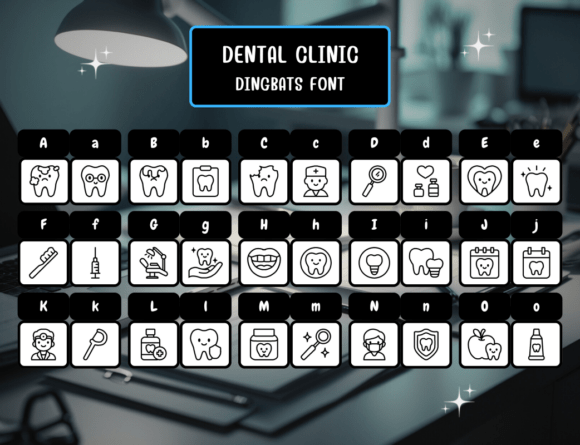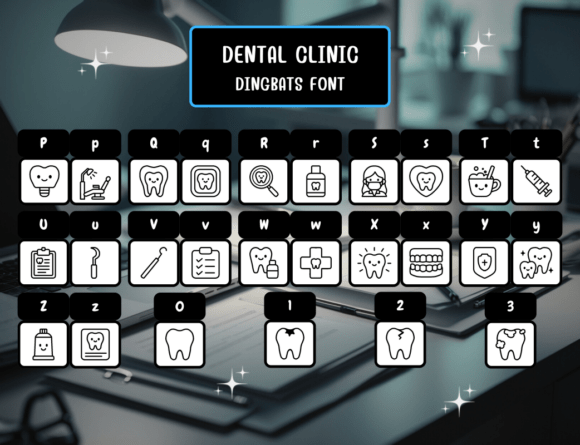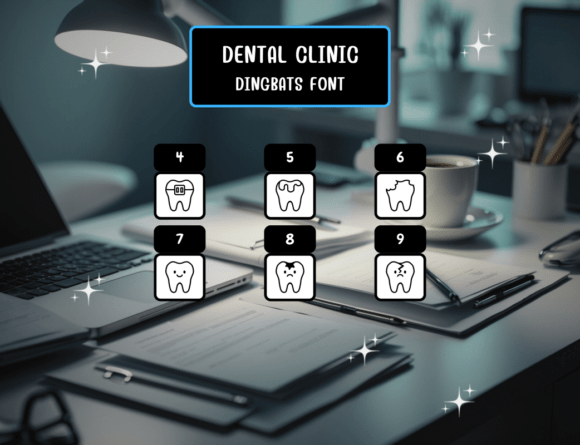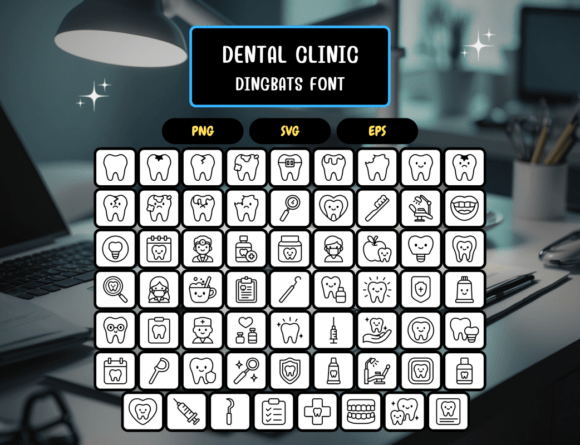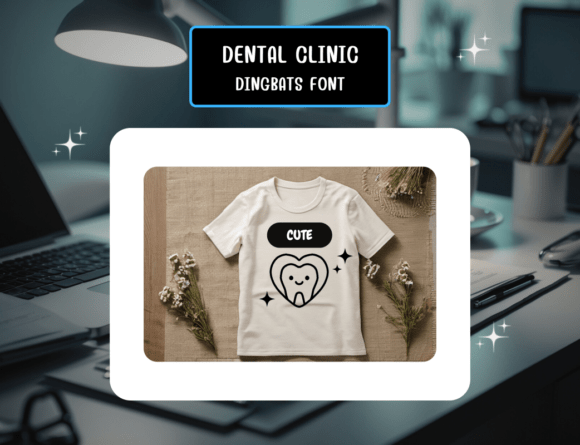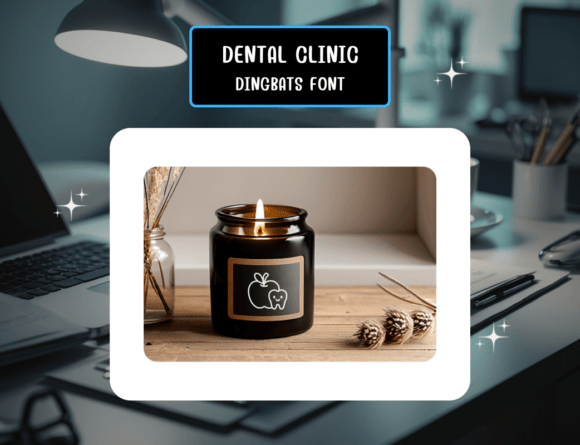
Dental Clinic Font: Elevate Your Designs with Professional Medical Icons
Are you a designer, health professional, or crafty individual looking for a unique and versatile font to enhance your dental-related projects? Look no further than the Dental Clinic Dingbats Font! This comprehensive collection of 62 clean and modern dental glyphs is specifically crafted to bring clarity and care to your designs. In this article, we’ll dive into the features, benefits, and uses of this fantastic font, and explore how it can elevate your branding, marketing materials, and educational resources.
What is Dental Clinic Dingbats Font?
Dental Clinic Dingbats Font is a specially designed font that features a wide range of dental-related icons, including teeth, toothbrushes, implants, dentists, and dental tools. Each glyph is carefully crafted with a smooth, minimalist line style, ensuring effortless readability and scalability. This font is perfect for health professionals, clinics, and educational materials, providing a professional and modern aesthetic to your designs.
Key Features of Dental Clinic Dingbats Font
- Comprehensive collection: 62 clean and modern dental glyphs, covering a wide range of dental-related icons.
- Versatile dingbat font: Suitable for various design applications, including branding, marketing materials, educational resources, and more.
- Effortless readability: Smooth, minimalist line style for clear and easy-to-understand visuals.
Uses of Dental Clinic Dingbats Font
This fantastic font can be used in a variety of design applications, including:
- Branding dental offices: Create a professional and modern logo, letterhead, or business card with the Dental Clinic Dingbats Font.
- Informative posters: Design eye-catching posters and flyers for oral hygiene campaigns, dental health awareness programs, or clinic promotions.
- Educational materials: Enhance your educational resources, such as infographics, presentations, and worksheets, with engaging and informative dental glyphs.
- Social media visuals: Create engaging social media posts, banners, and graphics for dental health awareness campaigns or clinic promotions.
- Appointment cards and stationery: Add a professional touch to your appointment cards, brochures, and other stationery with the Dental Clinic Dingbats Font.
Benefits of Using Dental Clinic Dingbats Font
By incorporating the Dental Clinic Dingbats Font into your designs, you’ll enjoy several benefits, including:
- Professional aesthetic: Elevate your designs with a modern and professional look that reflects your brand’s values and expertise.
- Clear communication: Ensure that your message is conveyed clearly and effectively with easy-to-understand dental glyphs.
- Time-saving: Save time and effort by using a comprehensive collection of pre-designed dental icons, rather than creating them from scratch.
- Versatility: Use the Dental Clinic Dingbats Font across various design applications, from branding to educational materials.
In conclusion, the Dental Clinic Dingbats Font is an exceptional resource for designers, health professionals, and crafty individuals looking to elevate their dental-related projects. With its comprehensive collection of 62 clean and modern dental glyphs, versatile dingbat font, and scalable vector icons, this font is perfect for a wide range of design applications. Whether you’re creating branding materials, marketing resources, or educational materials, the Dental Clinic Dingbats Font is sure to bring clarity, care, and professionalism to your designs.